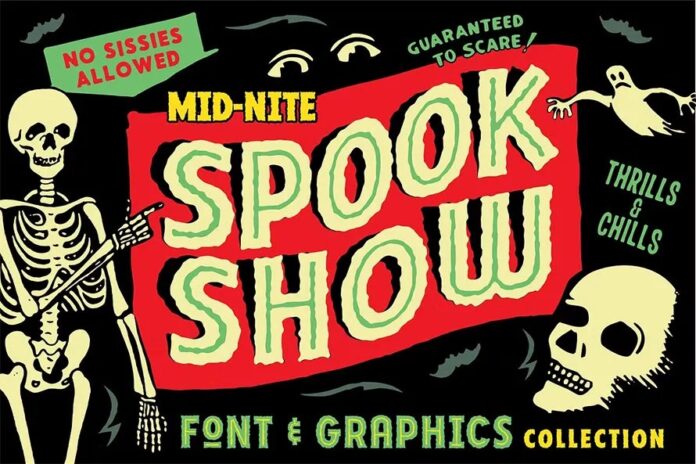
Another beautiful collection of Halloween fonts features dark and unsettling traits. These fonts can make your Halloween more exciting and fun. By using these creepy, scary fonts, you can create amazing gift cards, posters, packaging, and invitation flyers. This collection is based on hand-picked Halloween fonts only. So, what are you waiting for? Just dig in and grab the fonts you like the most, and make your Halloween theme spectacular!
50 Best Halloween Fonts for Creepy Scary Designs
How to get Hallween Vibes in 2025? These Halloween fonts and Halloween-themed graphics, where the goal is to capture a sense of fear or suspense. Fonts designed for this season often have sharp details, irregular spacing, or dripping effects that set them apart from standard typefaces. Using them in titles and headers helps establish the right mood before any image is even noticed.
Explore Halloween fonts and give your designs a chilling, creepy vibe.
Spook Show Poster Font
It’s creepy and it’s kooky. Mysterious and spooky. It’s our new Spook Show font and art bundle. Sure it’s perfect for retro inspired horror or halloween designs. But its “wiggly” outline also makes it an awesome choice for designs that need an icy, chilly, reptilian, shaky, or nervous vibe.
The King Crab Font
The King Crab is a bold display font that blends heavy metal energy with spooky-cute aesthetics. Inspired by crab claws and monster flicks, it’s perfect for Halloween posters, indie band merch, goth brands, or anything that needs a loud and lovable punch.
Bloody Horror Font
Love Halloween, monsters, and everything horror? Horrorland is your go-to font for adding a spooky touch to your designs! Perfect for stickers, social media posts, and short phrases, this hand-drawn, bloody font is a must-have for horror enthusiasts.
Ghost Malone Scary Font
Ghost Malone is a captivating horror font that seamlessly blends the eerie and the artistic in its handwriting style.
Fear Land Spooky Halloween Fonts
Fear Land is perfect for cricut projects, canva, halloween shirts, svg designs, logos, invitations, halloween decor, procreate, greeting cards, posters, stickers, lasers and more.
Ghostie Horror Halloween Handwritten Font
Ghostie is a hand-painted horror handwritten font inspired by vintage horror posters and Halloween classics. Rough brush strokes, dripping details, and natural imperfections give it a spooky yet playful personality.
Freaky Story Creepy Font
Freaky Story is a condensed serif with horror & creepy vibes! This serif is so unique that will make your design pop up.
Witch Font
Witch is a strange serif display typeface ideal for horror titles. It includes a ton of ligature options. You’ll need a software with ligature support or access to a glyphs panel to use the ligatures.
Spooktacular Font
Spooktacular font family is the fusion of beatnik movement on 1950’s, vintage horror movie, and vintage comics. Spooktacular comes with extra doddle dingbats to make your design looks perfect.
Tembre Retro Horror Font
No other font has the perfect look and feel for horror titles like Tembre. We all know the feeling of reading a horror title in a creepy font and it just sends shivers down your spine. Tembre will give anything you type a classic monster movie feel and make your titles stand out.
The Fright House Classic Horror Font
Inspired by classic horror movie posters, The Fright House, with its retro appeal and traditional serif styling, revives the spirit of horror from the 1970s.
Dreadful Vintage Font
Introducing a new layered typeface called Dreadful Inspired from classic horror movie and vintage comic. Dreadful Typeface best uses for headings, Logo type, quotes, apparel design, invitations, flyer, poster, greeting cards, product packaging, book cover, printed quotes, cover album, movie, etc.
Dark Mother Font
Monster Madness Typeface
A playful retro themed comic book style typeface. Don’t forget to turn on your Opentype ligatures to get even more awesomeness as you type.
Speltale Hallween Font
Speltale Font by Indieground This chilling, mysterious and vintage serif font blends the charm of retro and gothic atmospheres. Its roots are in the legendary ITC Benguiat, this version is an homage to its distinct serifs and shivering vintage sensations.
Wagnesday Horrow Font
Wagnesday is a thriller-horror styled font, inspired by thriller movies and designed with an elegant touch of horror, and thrilling. This all-caps font adds a dark vibe to your designs, making them more attention-grabbing.
Spooky Things Cute Halloween Fonts
Hey Boo! Spooky Things – a cute Halloween font with ghosts, spiders and cobwebs. Perfect for Halloween designs, logos, branding, packaging, apparel, cards, posters, quotes, social media posts, stickers and much more.
Hantu Halloween Horror Font
Create outstanding horror design with “Hantu” fonts, perfectly fit for your horror design and also unique alternative for casual designs if you want something different and eye catchy.
The Spokill Halloween Typeface
The Spokill Halloween Typeface is designed for the needs of design concepts themed about Halloween and events in October and November.